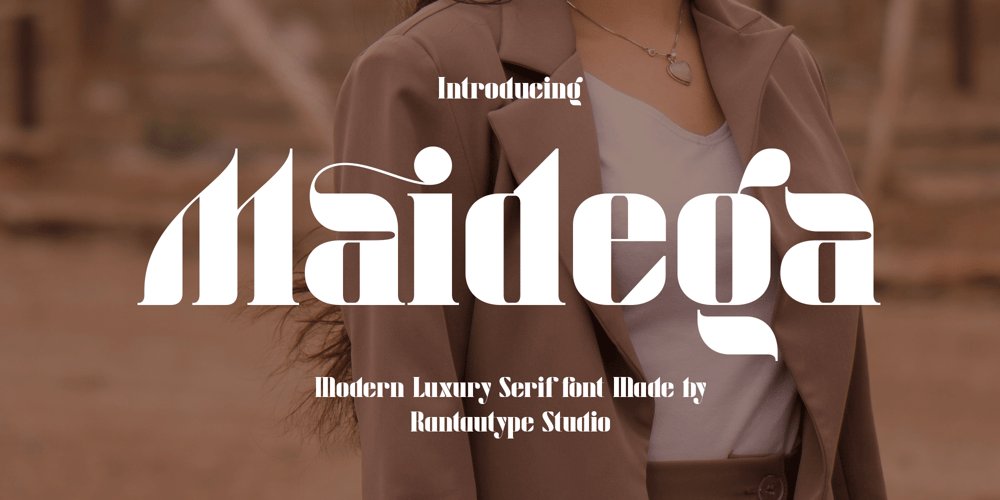
Maidega
Maidega font
Maidega Font Family was designed by Yudi Pratama Chandra and published by RantauType. Maidega contains 2 styles and family package options. Maidega is modern serif font with luxury character style. Maidega come with bold and we make it look fashionable to create your design project stand out. Maidega is a professional choice for any creative endeavor, chic, lifestyle design such as logotype, advertisements, watermark on photography, stationery, branding project, display and magazine, invitation, corporate brand, product design, label, business project and many other project with elegant touch.What you have: Standart Glyphs Numberial and Functional Ligature and alternate Works on PC & Mac Simple installations Accessible in Adobe Illustrator, Adobe Photoshop, Adobe InDesign, even work on Microsoft Word. Fonts include multilingual support for: Afrikaans, Albanian, Basque, Bemba, Bena, Breton, Catalan, Chiga, Cornish, Danish, Dutch, English, Estonian, Filipino, Finnish, French, Galician, German, Icelandic, Indonesian, Irish, Italian, Kinyarwanda, Luxembourgish, North, Norwegian, Portuguese, Romansh, Rombo, Rundi, Scottish, Gaelic, Sena, Shambala, Shona, Soga, Somali, Spanish, Swahili, Swedish, Swiss, German.Thank you for your purchase!Hope you enjoy with our font!